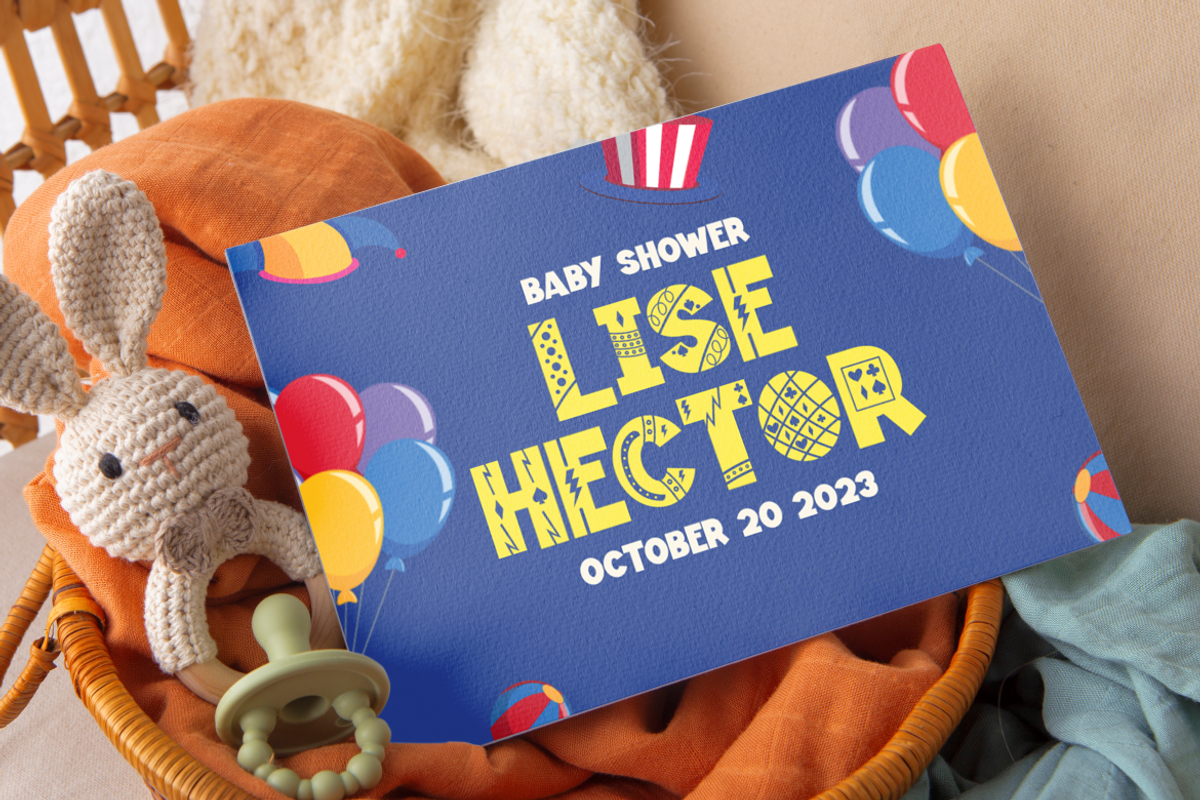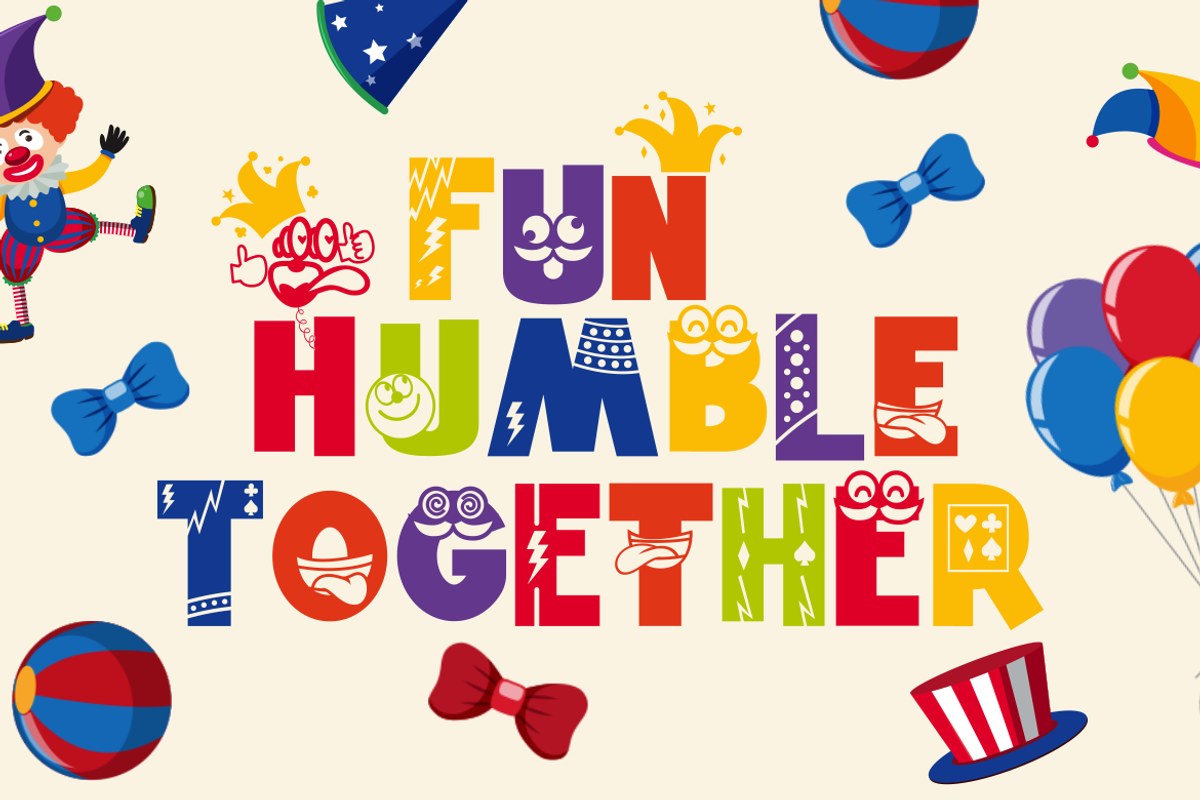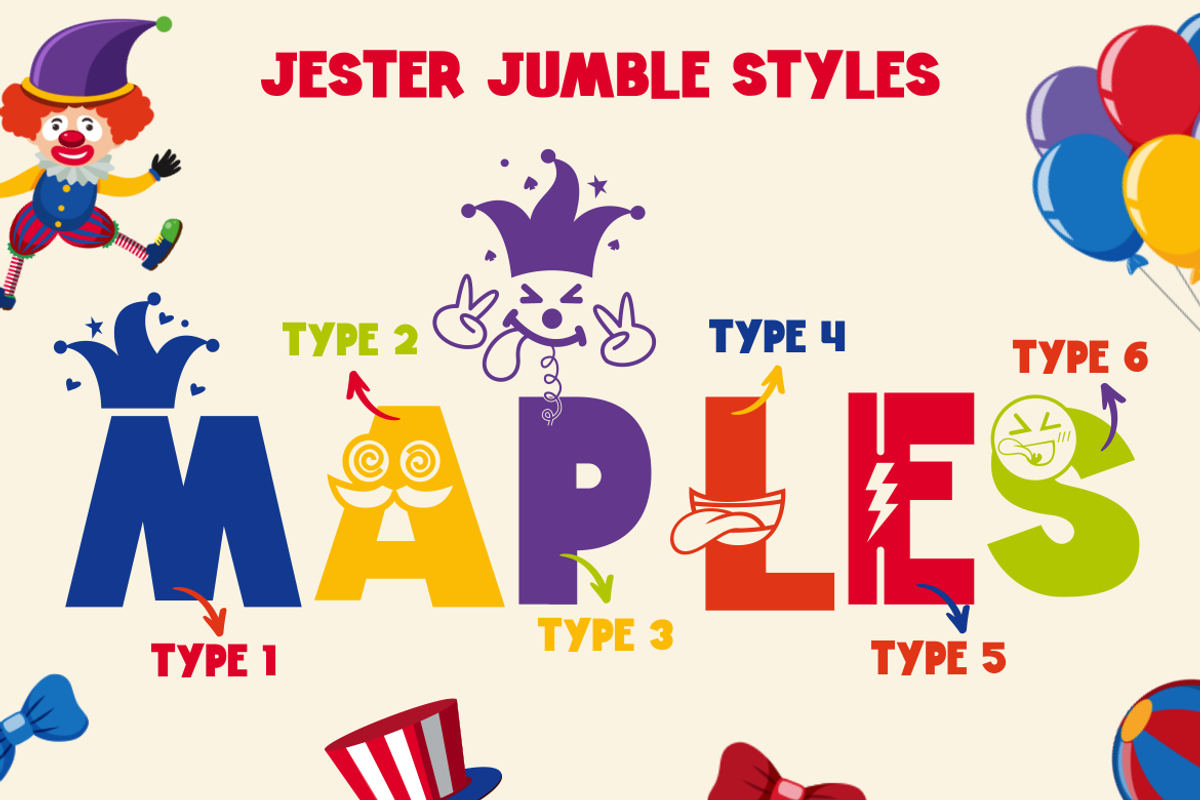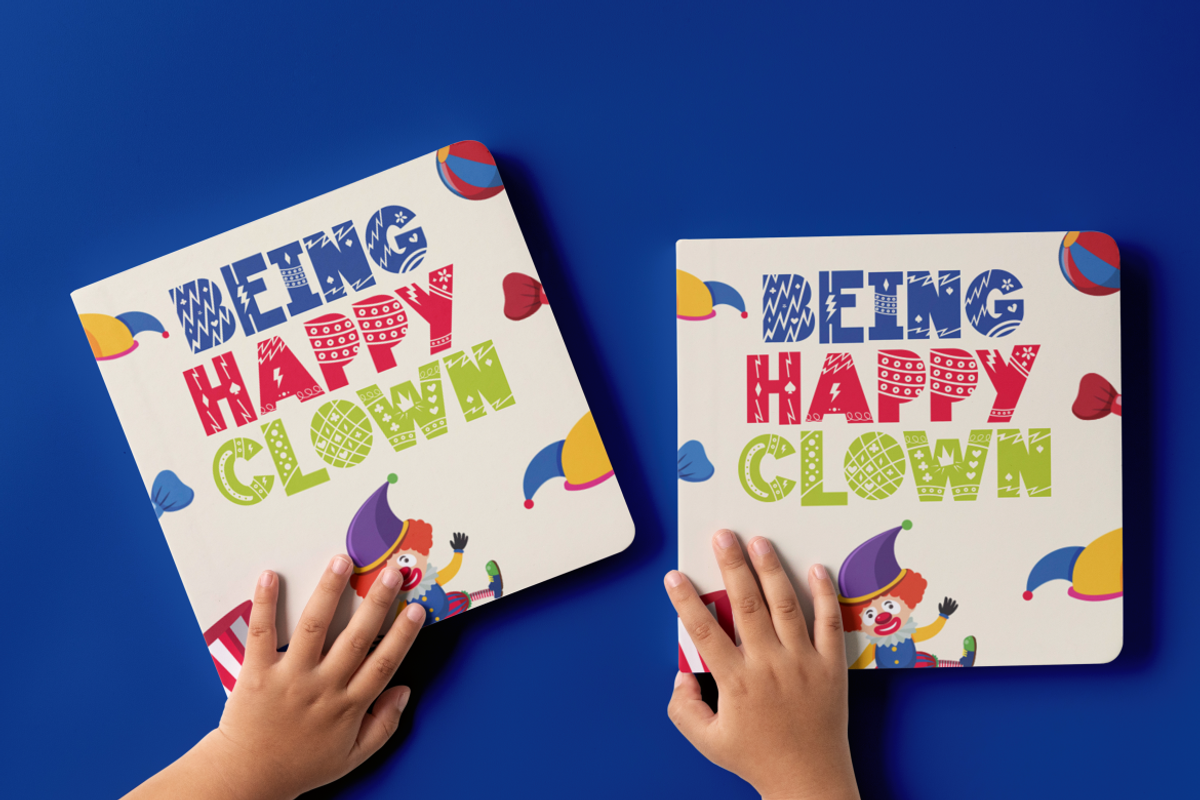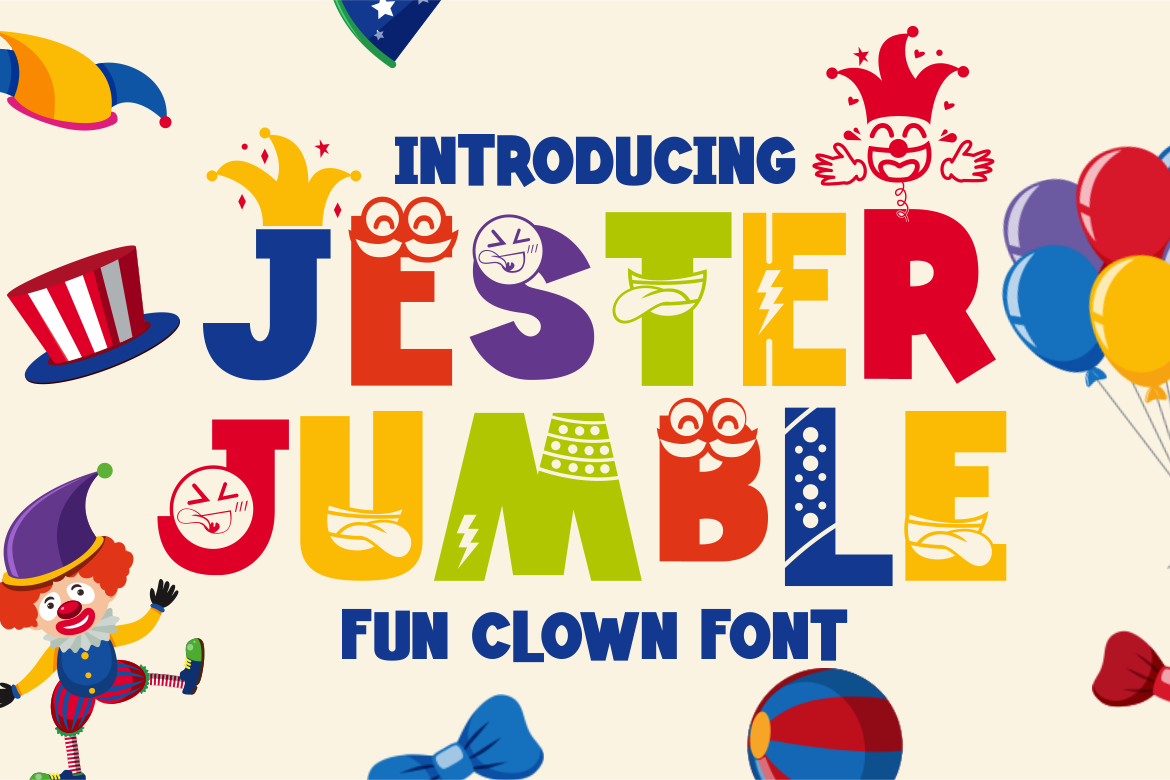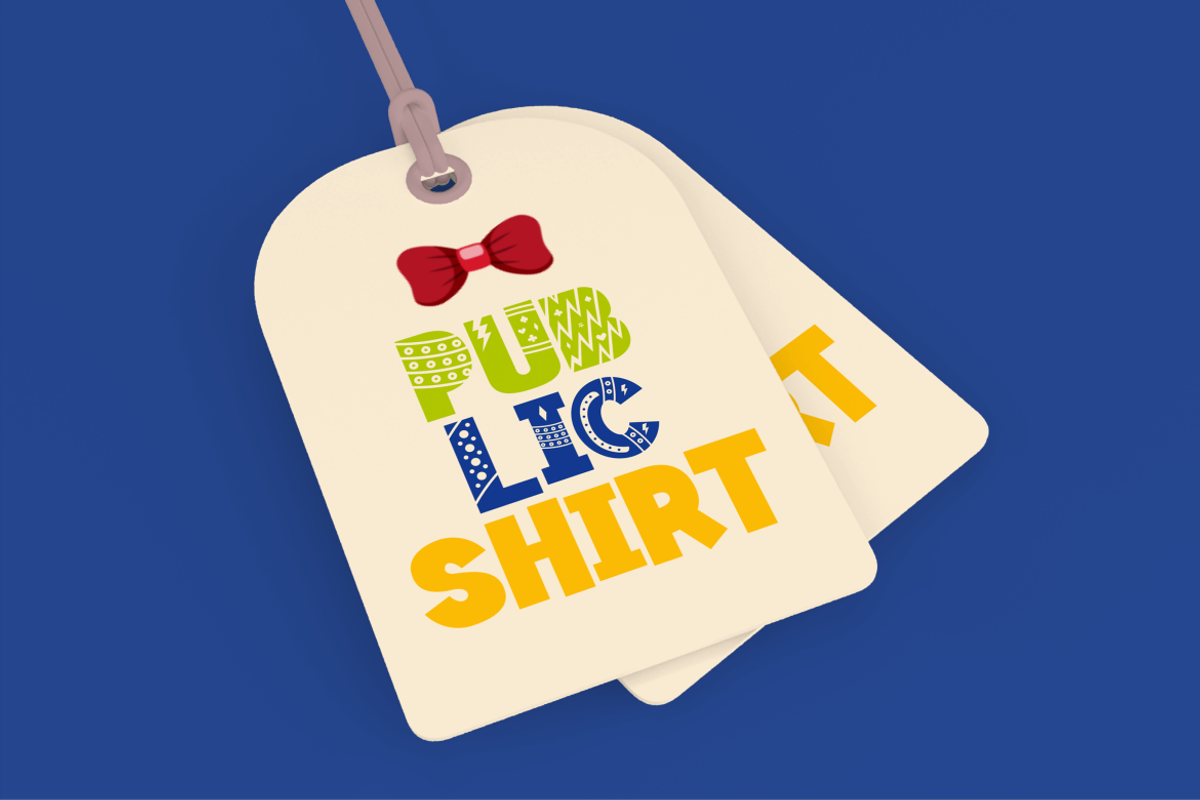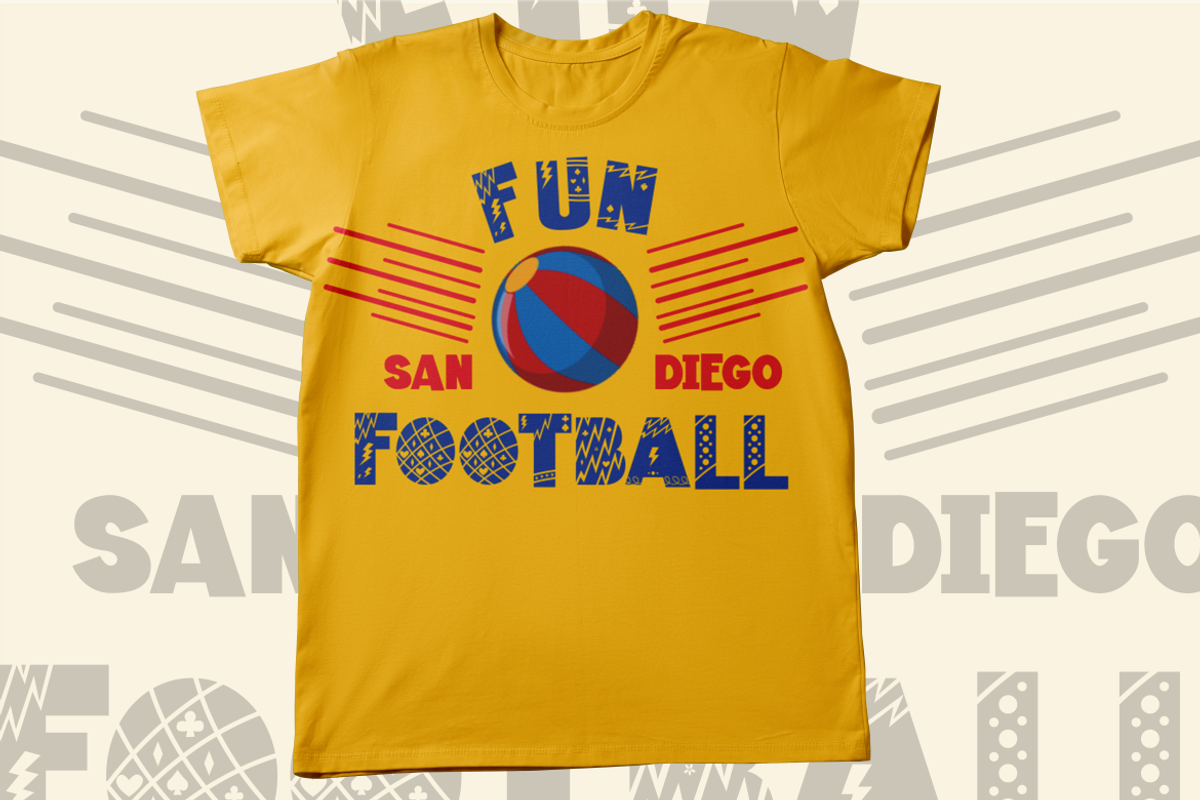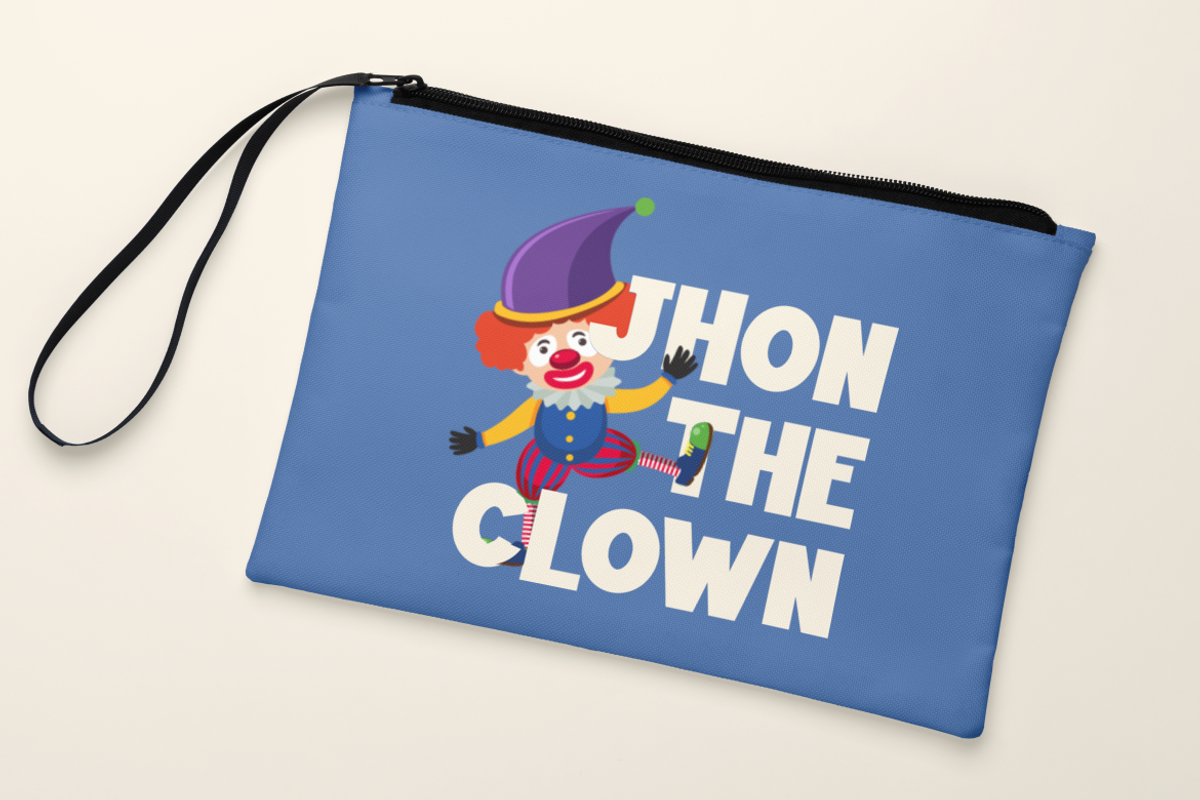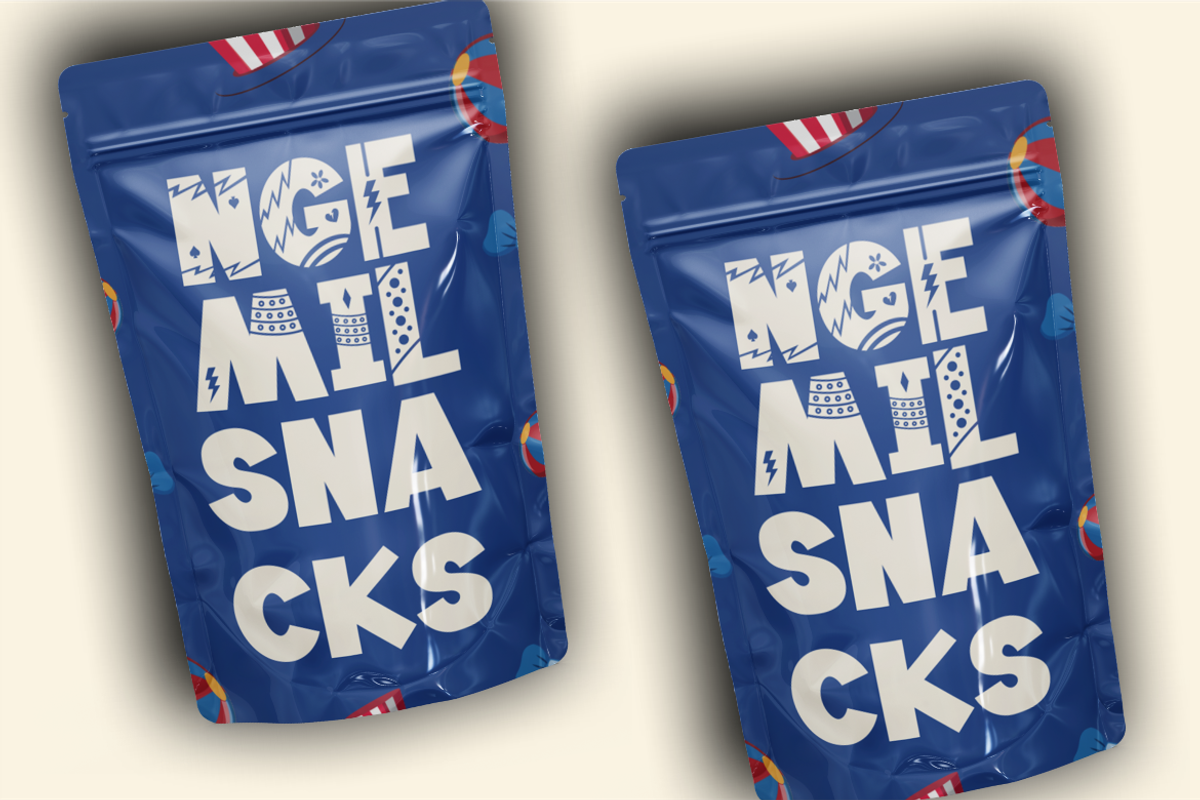
Jester Jumble - Fun Clown Font
Jester Jumble - Fun Clown Font is a whimsical and playful typeface designed with a clown and circus theme in mind. Its quirky characters add an element of chaos and fun to your designs, making it perfect for projects that require a playful touch. This font includes six adorable clown-themed decorative variations, featuring circus hats, masks, laughing mouths, and more.
Perfect for clown-themed designs, such as invitation cards, birthday invites, party decorations, logos, stickers, clothing, packaging, children's books, magazines, and more, Jester Jumble adds a delightful and entertaining dimension to your creative projects.
With its charming and playful style, this font captures the essence of circus merriment and clownish fun, making it an ideal choice for any project that aims to bring a smile to people's faces.